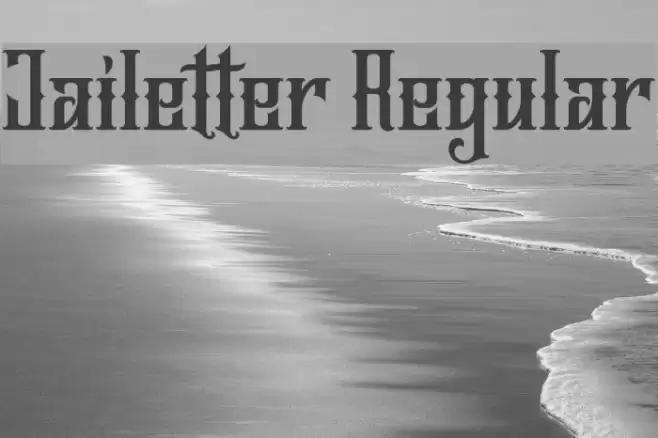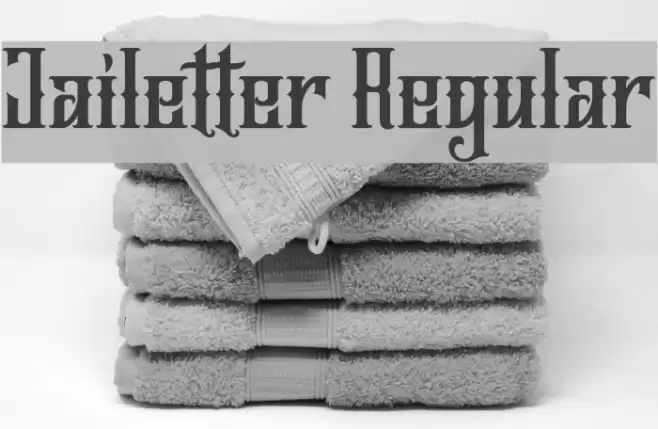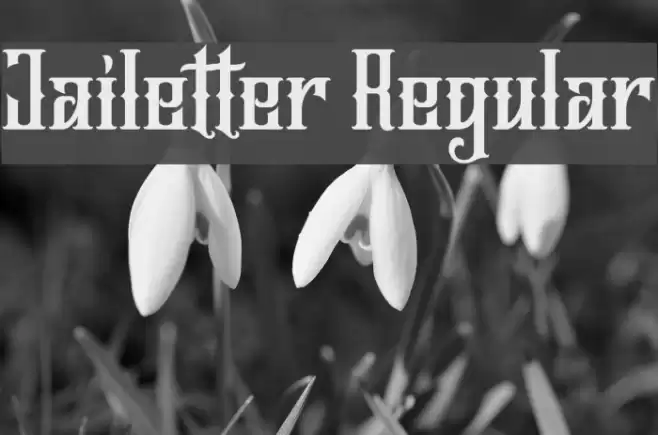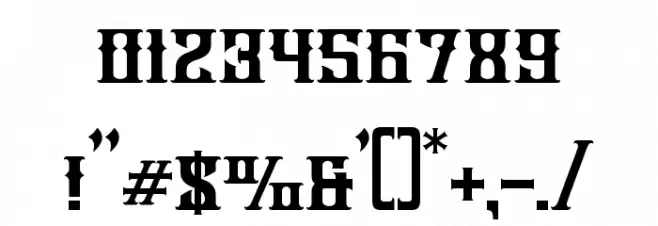
Jailetter Regular Font
Jailetter Regular Description
This font features a bold and striking design with a strong presence, characterized by its sharp, angular lines and a distinct Gothic influence. The uppercase letters are tall and imposing, while the lowercase letters maintain a consistent style with unique flourishes. The numerals are equally bold, matching the overall aesthetic. Special characters are designed with the same attention to detail, ensuring a cohesive look across all glyphs. This font's dramatic style makes it suitable for projects that require a strong visual impact.
A bold, Gothic-inspired font with sharp, angular lines and dramatic style from Uncategorized fonts.
- Proposed Projects: Ideal for branding, posters, album covers, and any design requiring a bold, impactful typeface.